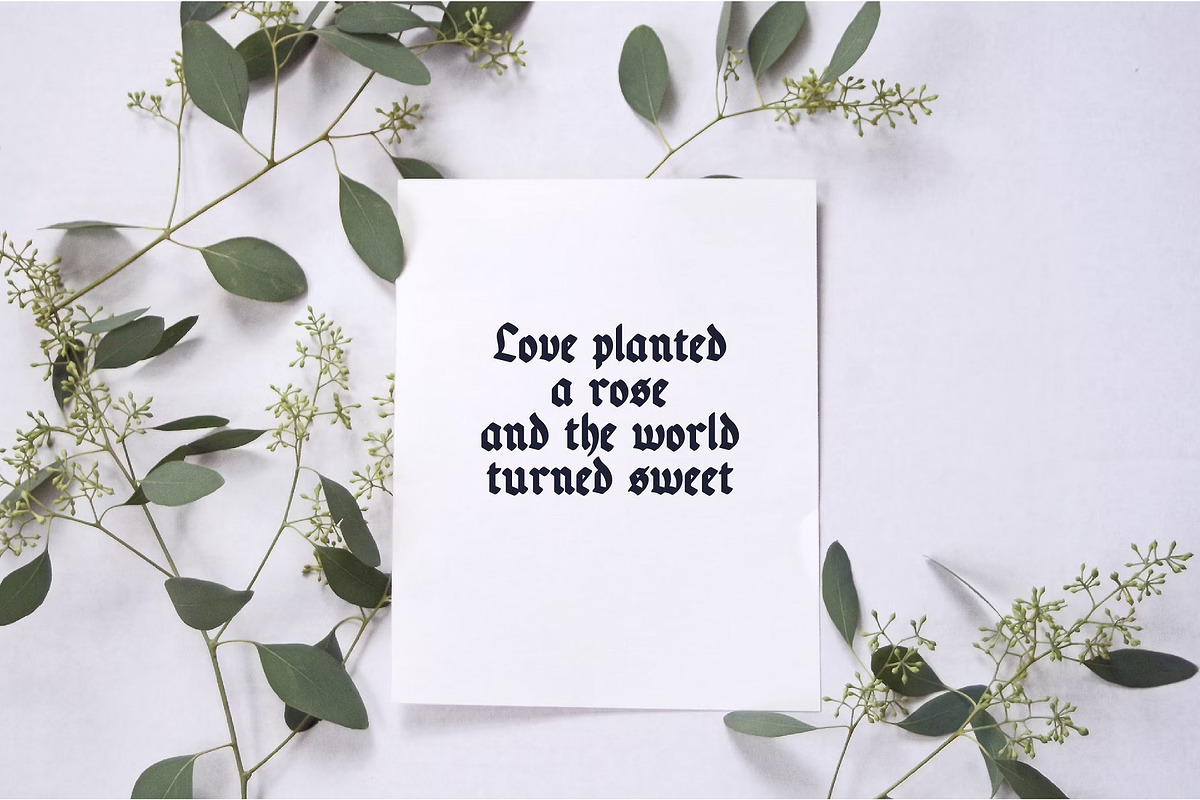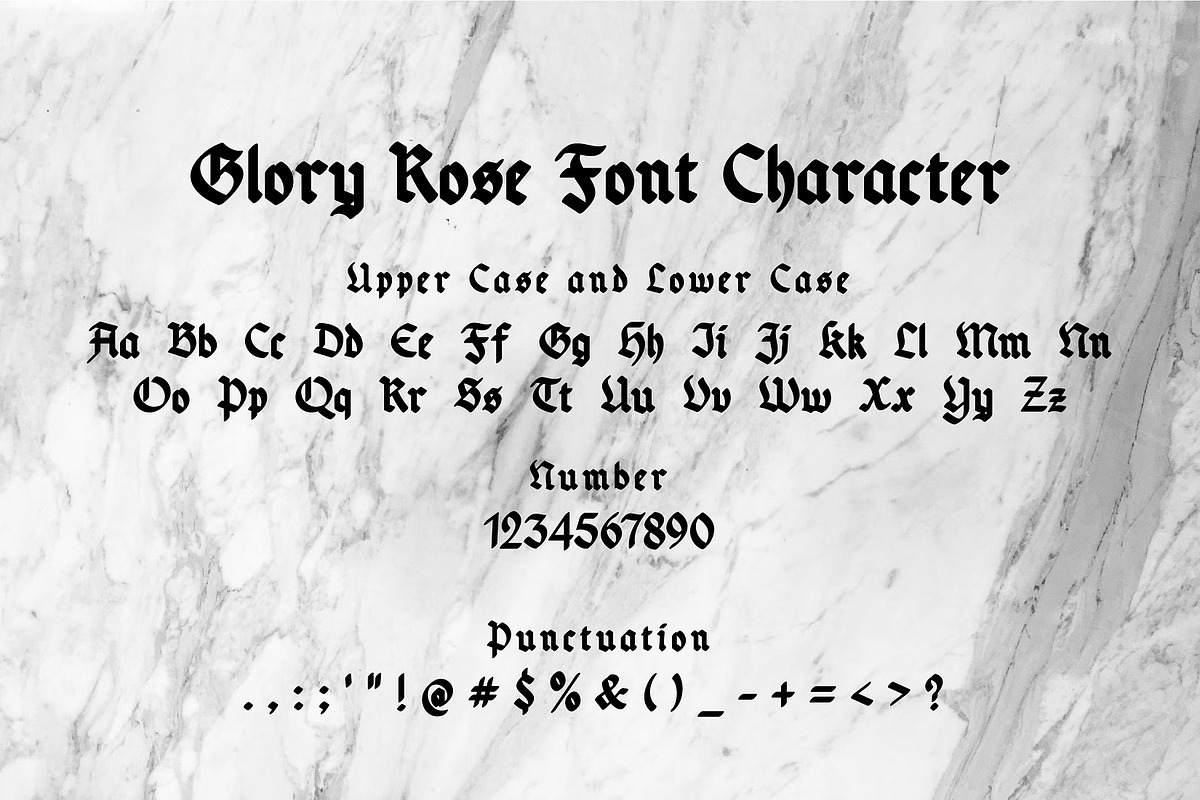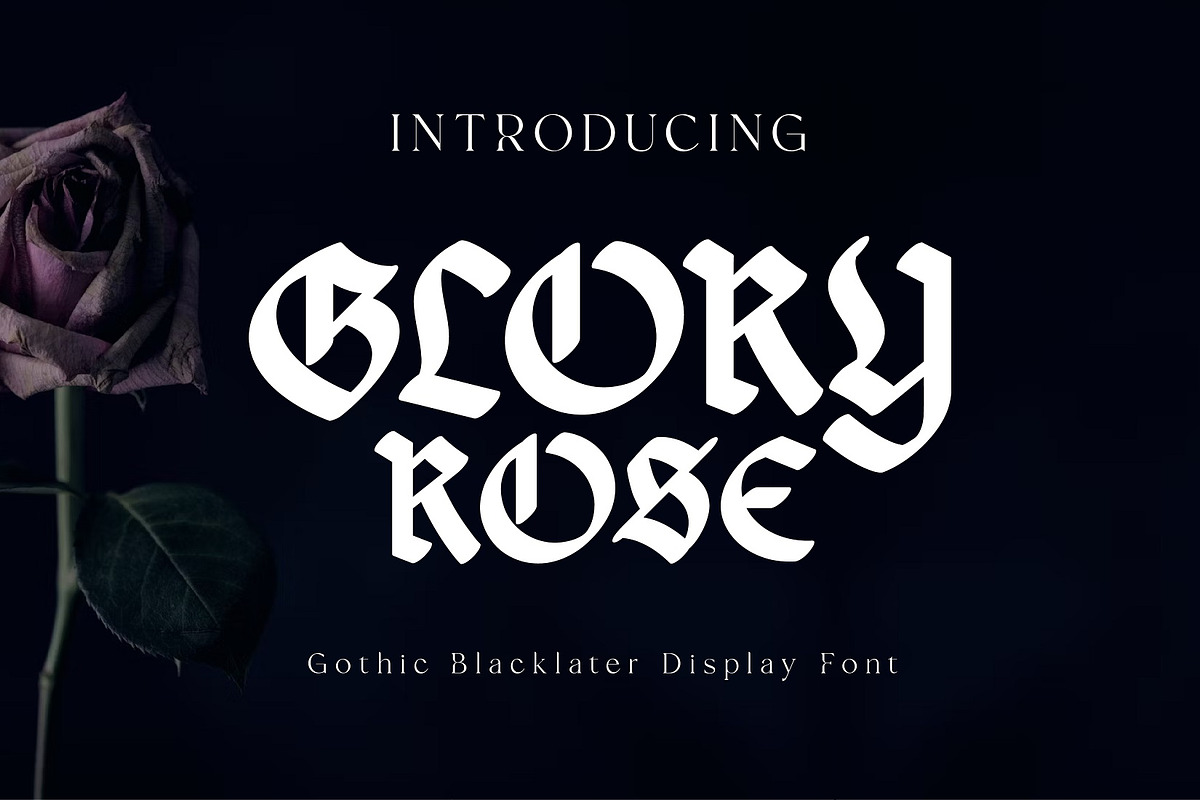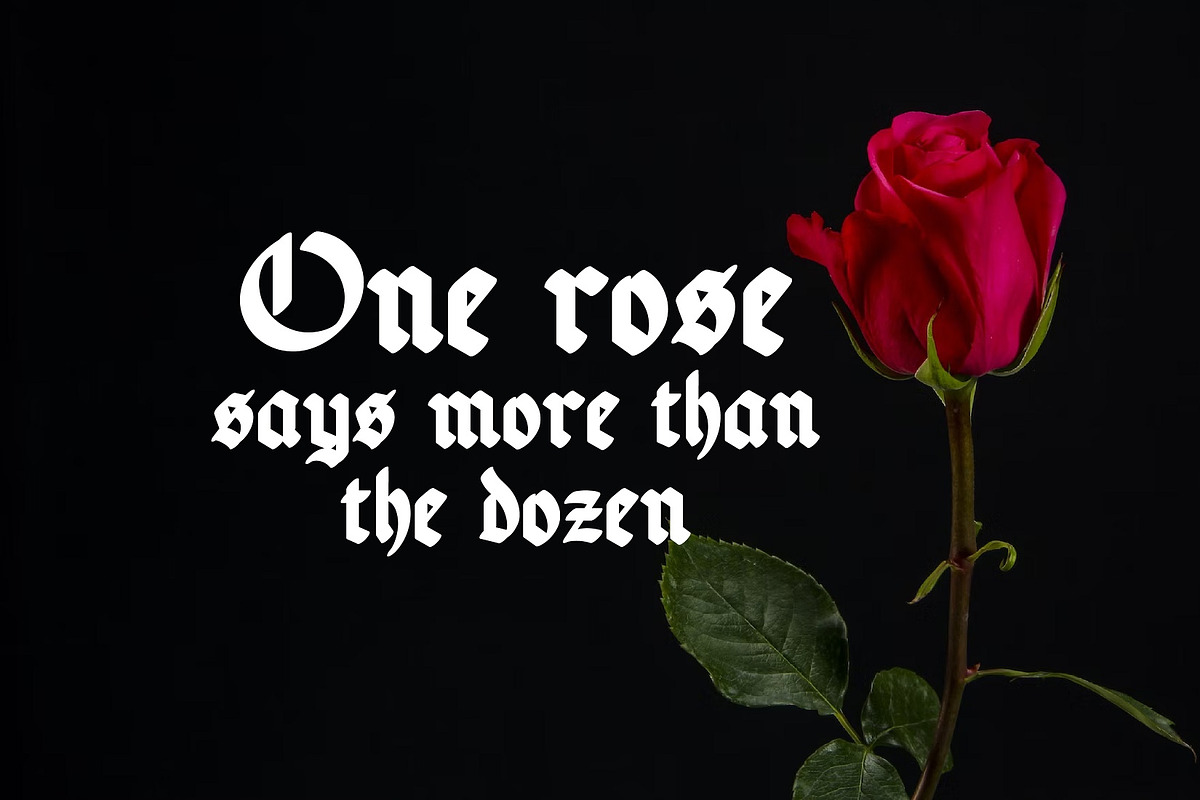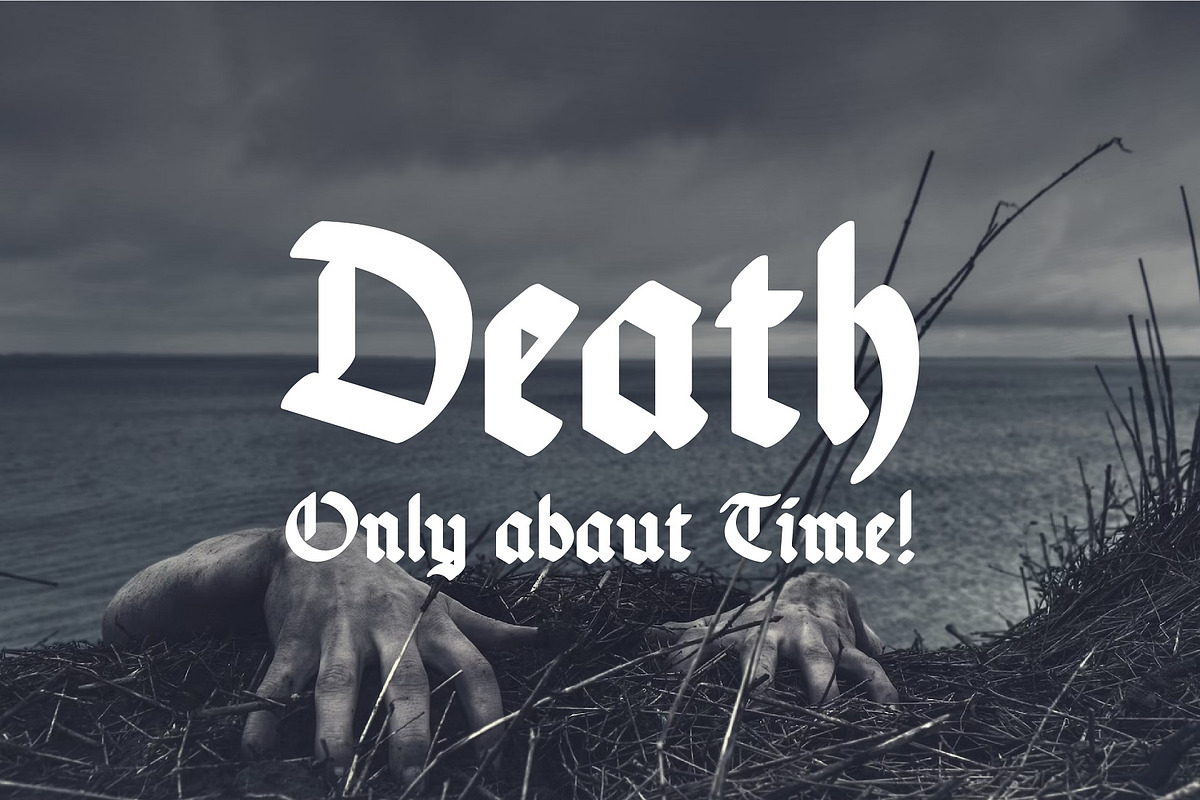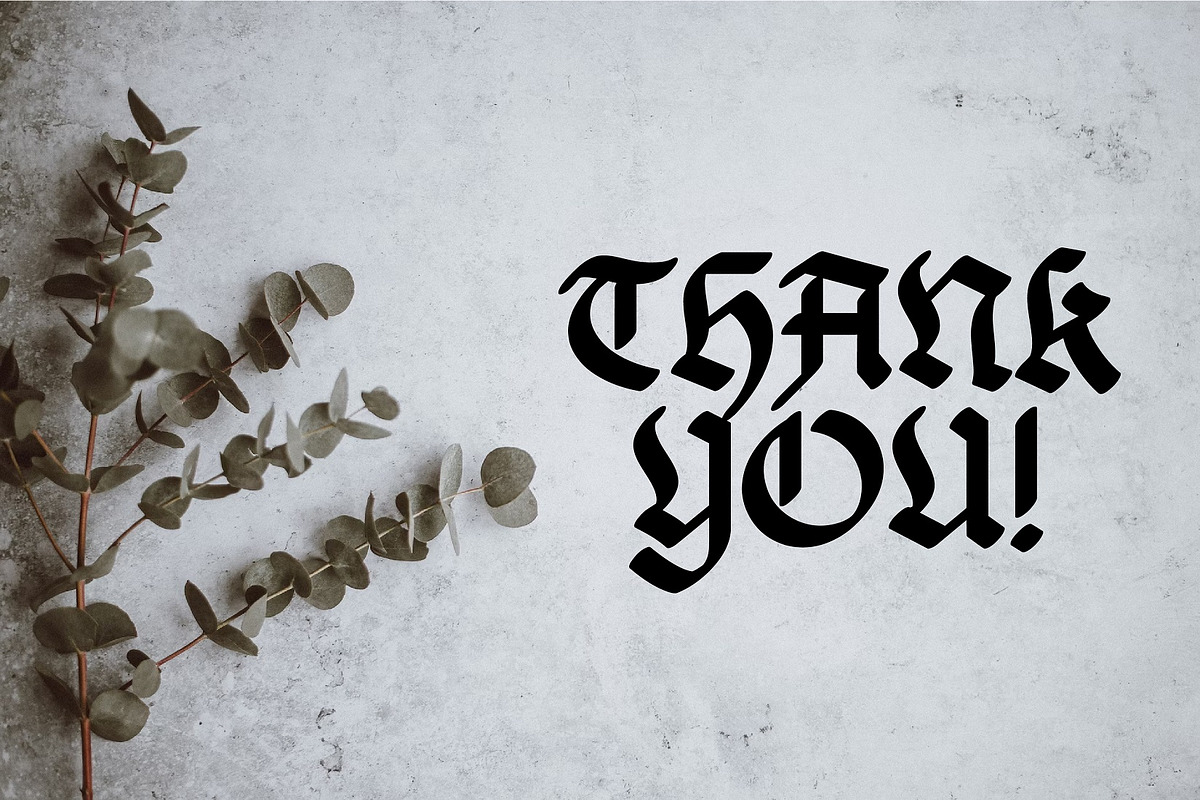
Glory Rose Gothic Blacklatter Font
Introducing Glory Rose - Gothic Blacklatter Display Font
Glory Rose is a gothic blacklatter font. Perfect for poster, web design, branding, illustrations, badges, shirt design and some other works.